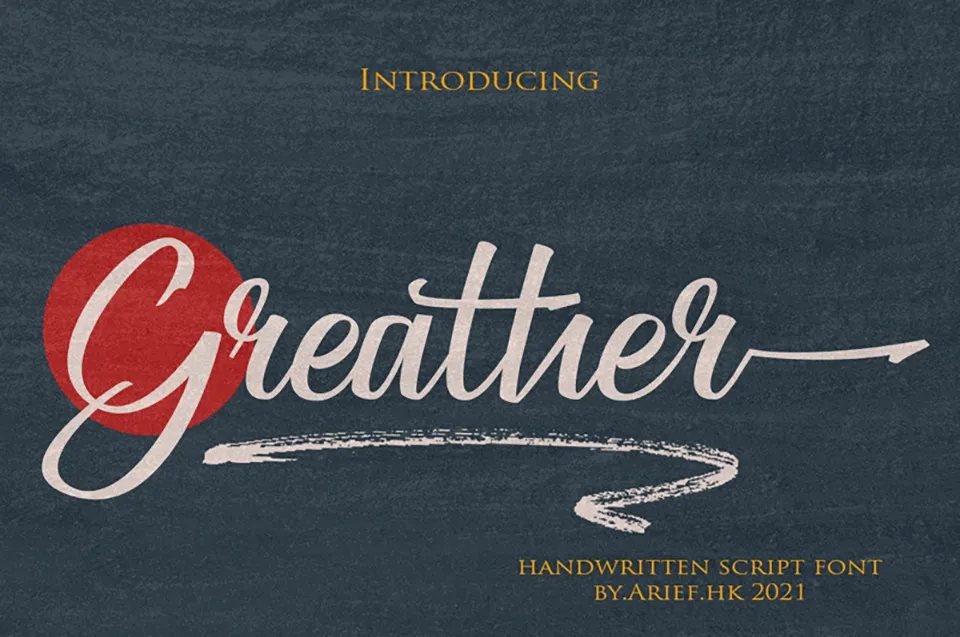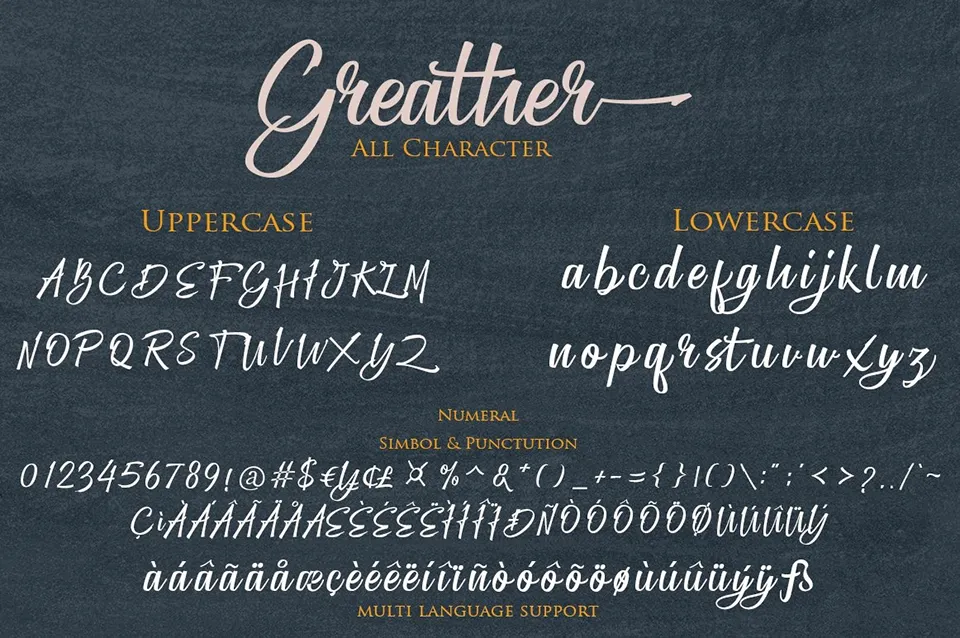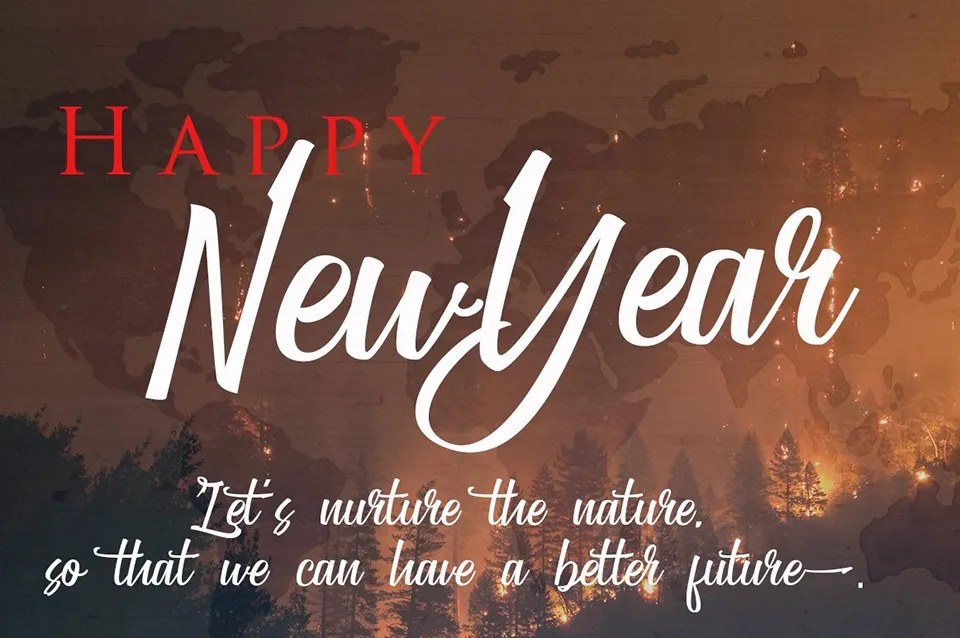
Greather Font
Greather Font is a modern, casual handwritten font that adds a touch of elegance to craft designs. Its simplicity makes it easy to use, while its beauty shines when combined with various creative projects. PUA encoded, this font allows effortless access to all glyphs and swashes, enhancing its versatility and aesthetic appeal. Perfect for adding a personal touch to designs, Greather is ideal for crafting unique visual experiences. Its casual charm makes it suitable for a wide range of creative applications.